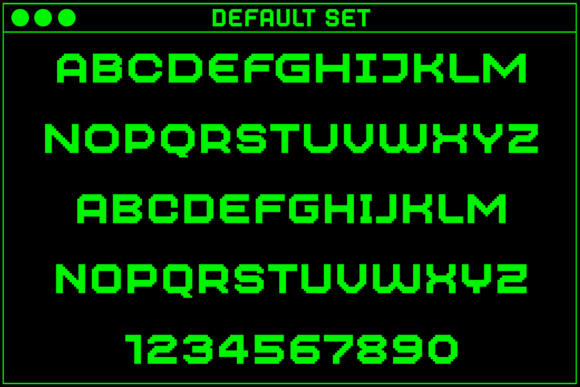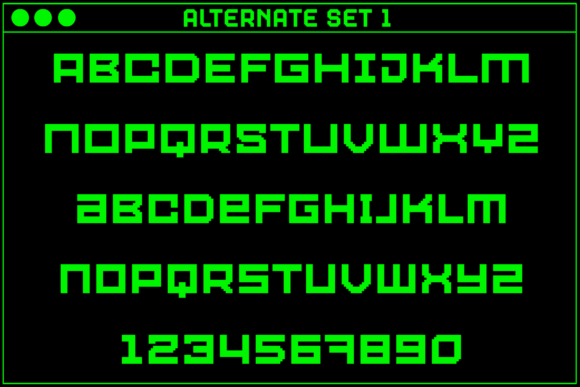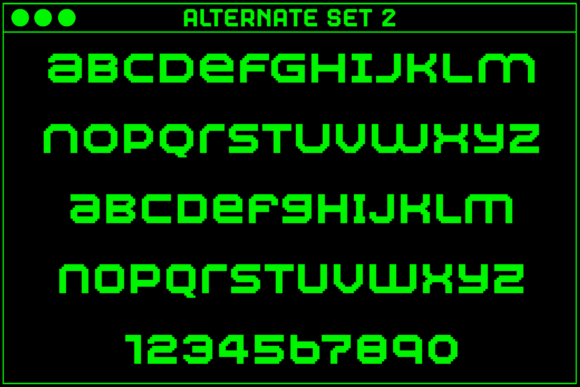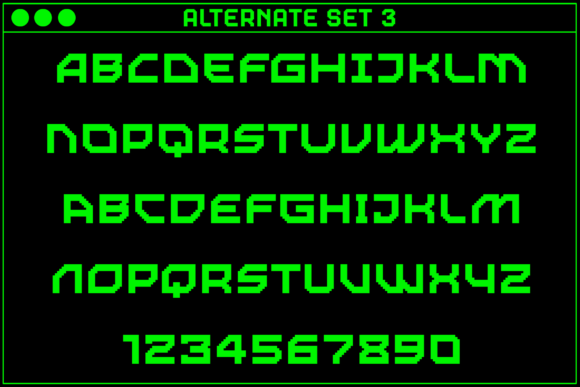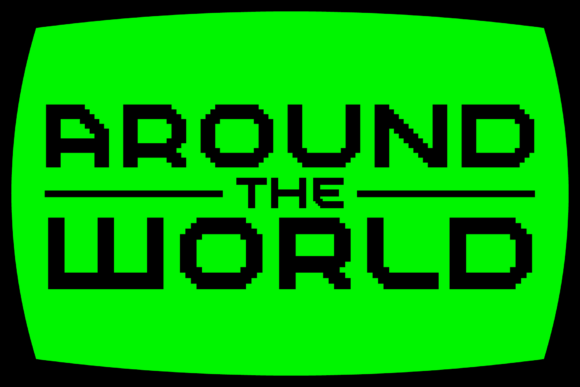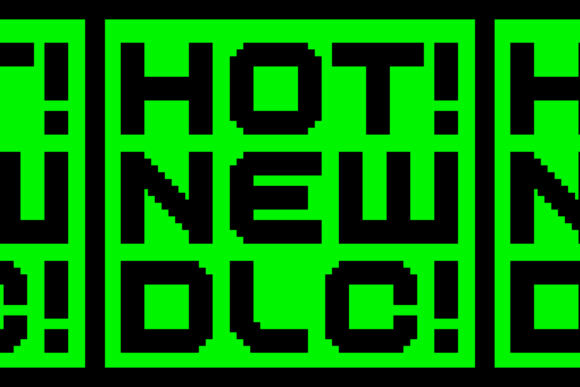
Introduction to MultiType Pixel Wide Font
Have you ever stared at a blank design canvas, desperately searching for the perfect font to bring your creative vision to life? That’s exactly where I was, until I stumbled upon the MultiType Pixel Wide Font. Its quirky, pixelated aesthetic immediately captured my attention, and I knew I had to dive in and explore its possibilities.
As a designer, you’re constantly on the lookout for that one special resource that can elevate your project and make it truly stand out. And that’s exactly what MultiType Pixel Wide Font offers – a unique, high-quality design element that can add a touch of edginess and sophistication to even the most mundane designs.
Key Features of MultiType Pixel Wide Font
- High quality font design suitable for various creative projects, including digital art, graphic design, and web development.
- MultiType Pixel Wide Font offers a transparent background, making it easy to integrate into any design resource.
- Pixel-perfect design with high resolution, suitable for use in print and digital media, including posters, flyers, and web graphics.
- Unique characteristics include its wide and varied font styles, making it perfect for adding a creative touch to any design project.
- Includes a comprehensive character set, supporting a wide range of languages and characters, making it a versatile design resource.
Honest Review: MultiType Pixel Wide Font
I recently had the chance to work with the MultiType Pixel Wide Font and I must say, it’s been a game-changer for my design projects. As a designer, I’m always on the lookout for high-quality design resources that can elevate my creative work.
- ✨ High-quality glyphs that are crisp and clear, even at larger font sizes.
- ✨ A wide range of characters, including some unique and creative symbols.
- ⚠️ The font does not support transparent backgrounds, which can be a bit of a pain for designers who like to use subtle backgrounds.
Overall, I’m really impressed with the MultiType Pixel Wide Font. It’s a great addition to any designer’s toolkit and can add a touch of creativity to any project. If you’re looking for a high-quality, free font for your next design project, I would definitely recommend giving it a try.
The MultiType Pixel Wide Font is a versatile design resource ideal for creative projects requiring high-quality typography. Its transparent background makes it suitable for various design applications.
Tips for Getting the Most Out of MultiType Pixel Wide Font
To maximize the effectiveness of the MultiType Pixel Wide Font, experiment with different font sizes, colors, and styles. Use the font in combination with other design elements to create a visually appealing composition.
The MultiType Pixel Wide Font is suitable for a variety of creative projects, including: